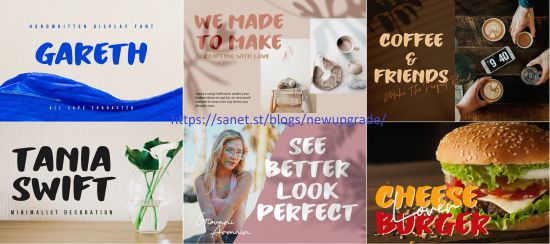
Introducing Gareth, simple handwriting style. This font offers a unique look and is very attached to your design in a classic or modern style.
Gareth is the right choice of fonts for your projects in the form of logos & branding, print media, social media posts, wedding invitations, watermarks or works that require hand styles with a distinctive style.